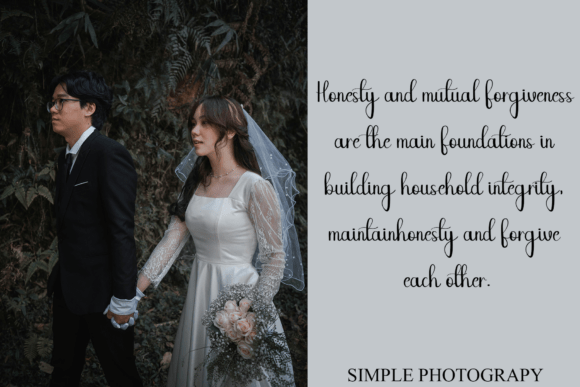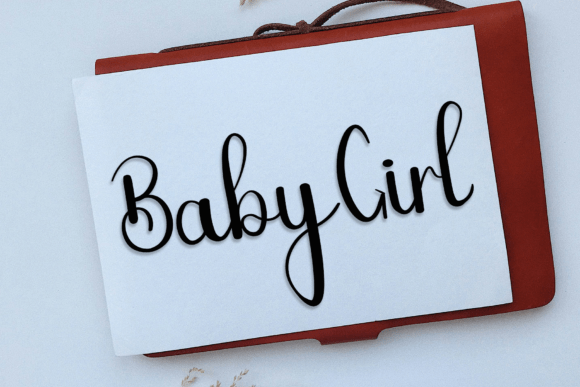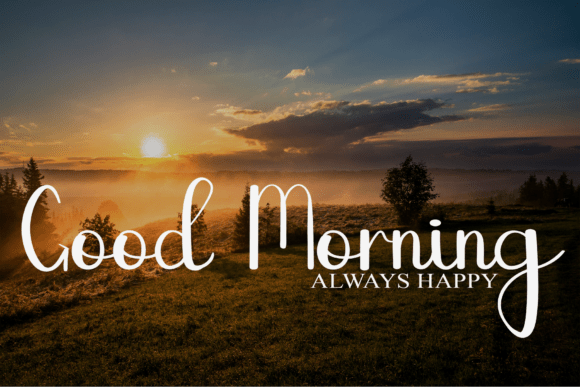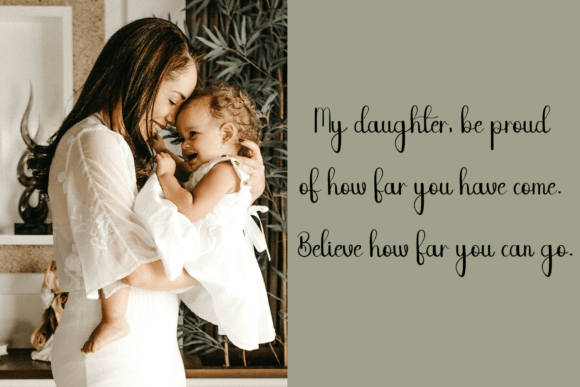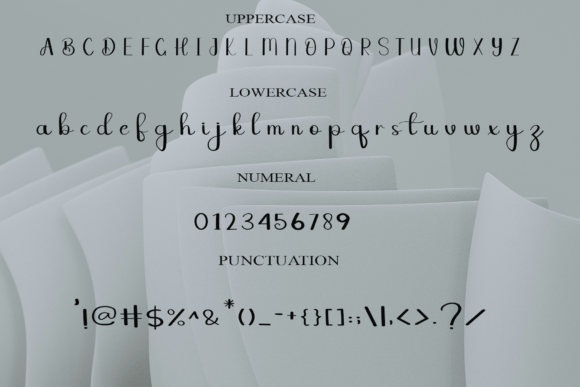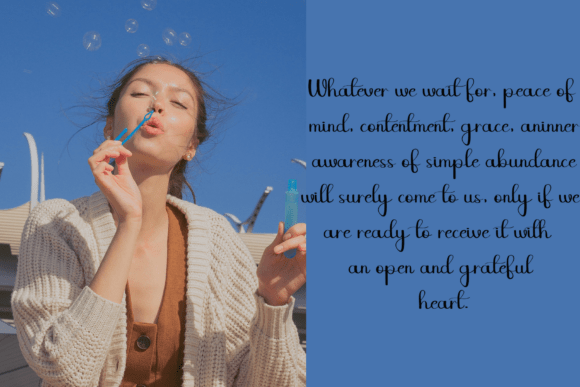
Baby Boho Font: Add a Touch of Holiday Magic to Your Designs
The holiday season is upon us, and with it comes the desire to create festive and merry designs that capture the spirit of the season. If you’re a designer or crafter looking for a typeface that embodies the whimsy and enchantment of the holidays, look no further than the Baby Boho Font. This delightful font is perfect for adding a touch of nostalgia and cheer to your projects, from greeting cards and gift tags to holiday-themed crafts and decorations.
The Charm of Baby Boho Font
Baby Boho Font is a decorative typeface that exudes a sense of festivity and joy. Its whimsical flair and decorative elements make it an ideal choice for designers and crafters who want to add a personal touch to their holiday designs. With its unique and playful style, Baby Boho Font is sure to bring a smile to anyone’s face. Whether you’re creating holiday cards, gift tags, or other festive projects, this font is sure to make your designs stand out.
Baby Boho Font is specifically designed with the holiday season in mind. Its festive and merry style makes it perfect for a wide range of holiday projects, including:
- Greeting cards: Add a personal touch to your holiday cards with Baby Boho Font’s whimsical and decorative style.
- Gift tags: Make your gifts extra special with custom gift tags featuring Baby Boho Font.
- Holiday crafts: Add a touch of magic to your holiday crafts, such as decorations, garlands, and more.
- Social media posts: Get into the holiday spirit with festive social media posts featuring Baby Boho Font.
Why Choose Baby Boho Font?
So why choose Baby Boho Font for your holiday designs? Here are just a few reasons:
- Unique style: Baby Boho Font has a unique and playful style that’s sure to make your designs stand out.
- Festive and merry: This font is specifically designed to capture the spirit of the holiday season.
- Whimsical flair: Baby Boho Font’s decorative elements and whimsical flair add a touch of enchantment to your designs.
Tips for Using Baby Boho Font
Here are a few tips for getting the most out of Baby Boho Font:
- Experiment with sizes: Try using Baby Boho Font in different sizes to add visual interest to your designs.
- Pair with other fonts: Combine Baby Boho Font with other fonts to create a unique and eye-catching design.
- Use with holiday imagery: Pair Baby Boho Font with holiday imagery, such as snowflakes, holly, or ornaments, to create a festive design.
Baby Boho Font is a festive and merry typeface that’s perfect for adding a touch of holiday magic to your designs. With its decorative elements and whimsical flair, it’s sure to bring a smile to anyone’s face. Whether you’re a designer or crafter, Baby Boho Font is a great choice for holiday projects, from greeting cards and gift tags to holiday-themed crafts and decorations. So why wait? Download Baby Boho Font today and let the magic of the holiday season shine through in your designs!